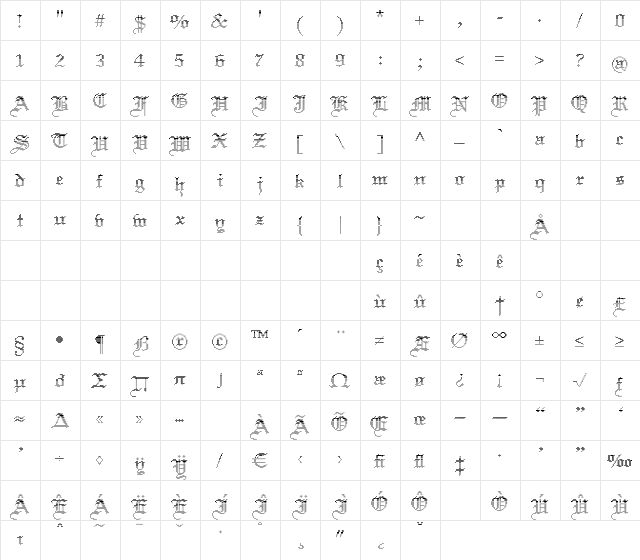
Brea Regular
| Foundry | Corey Holms |
| Designer | Corey Holms |
Design Context for Brea Typeface
Brea is a composed and adaptable typeface that performs quietly and consistently across a wide range of design contexts.